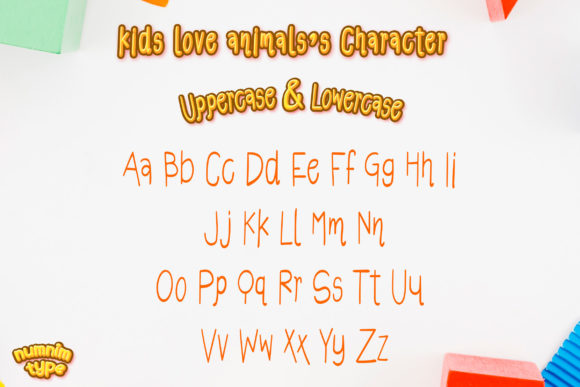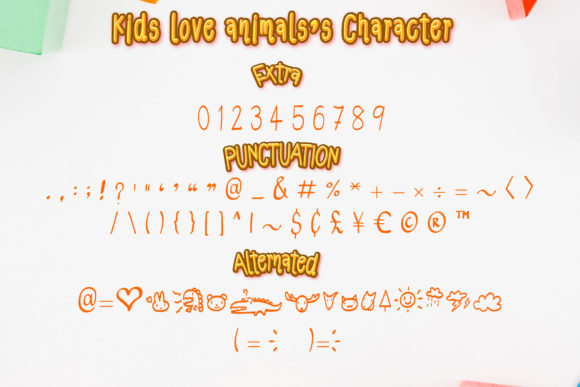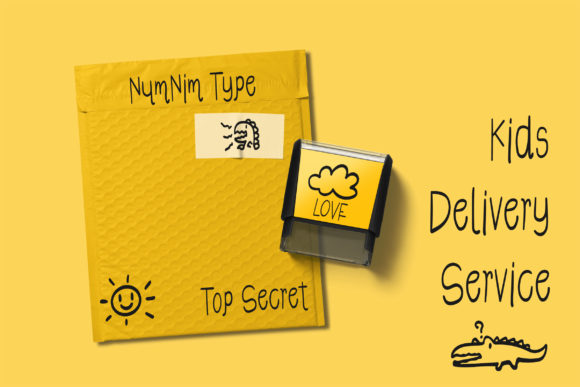
Introduction to Kids Love Animals Font
Do you remember the moment when your child first drew a picture of their favorite animal? The excitement and joy on their face as they carefully crafted every detail? As a designer, you’ve probably experienced a similar creative moment when working on a project, whether it’s a children’s book, a nursery decor, or a fun website. For those moments, you need a design resource that can bring your imagination to life, and that’s where the Kids Love Animals Font comes in.
This sweet and joyful handwritten font is perfect for creating high-quality designs that will capture the hearts of both kids and adults. With its playful and whimsical style, it’s a great addition to any creative project, especially when combined with bright colors and a transparent background. Whether you’re a professional designer or a hobbyist, the Kids Love Animals Font is a valuable asset that can help you bring your ideas to life.
Key Features of Kids Love Animals Font
- High-quality, playful design perfect for creative projects, such as children’s books, educational materials, and more.
- Perfect for designers and artists working on kids’ educational materials, children’s book illustrations, and other creative projects that require a fun and engaging design.
Honest Review: Kids Love Animals Font
I recently stumbled upon the Kids Love Animals Font, and I must say, it’s been a pleasant surprise. As a designer, I’m always on the lookout for unique and high-quality design resources to elevate my creative projects. The Kids Love Animals Font definitely delivers on that front.
What works well about this font is its playful and whimsical feel, making it perfect for projects that require a touch of fun and imagination. The font is also highly customizable, with options for a transparent background, which is a great feature for designers who want to create visually appealing graphics.
- ✨ Highly customizable with transparent background options
- ✨ Perfect for creative projects that require a playful touch
- ✨ High-quality design that’s sure to impress
However, there are some limitations to consider. The font is a bit limited in terms of its character set, which may not be ideal for longer text-based projects. Additionally, the font is a free download, which means it may not be as polished as some paid options.
Overall, I’m quite impressed with the Kids Love Animals Font. While it may have some limitations, its unique design and high-quality feel make it a great addition to any designer’s toolkit.
Introduction to Kids Love Animals Font
The Kids Love Animals Font is a popular design resource that offers a unique and playful style, perfect for creative projects that involve children or animals. With a transparent background and high-quality design, this font is ideal for a wide range of applications.
Tips for Getting the Most Out of Kids Love Animals Font
- Experiment with different font sizes and colors to create a visually appealing design.
- Combine the Kids Love Animals Font with other design elements, such as graphics or images, to create a unique and engaging design.
Common Use Cases for Kids Love Animals Font
- Social media graphics and flyers for children’s events or charities.
- Children’s book covers or illustrations.
- Education materials, such as worksheets or activity sheets.